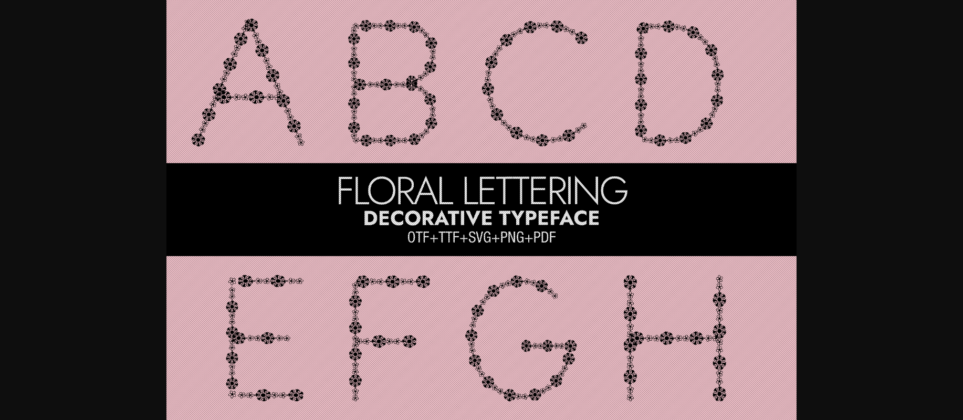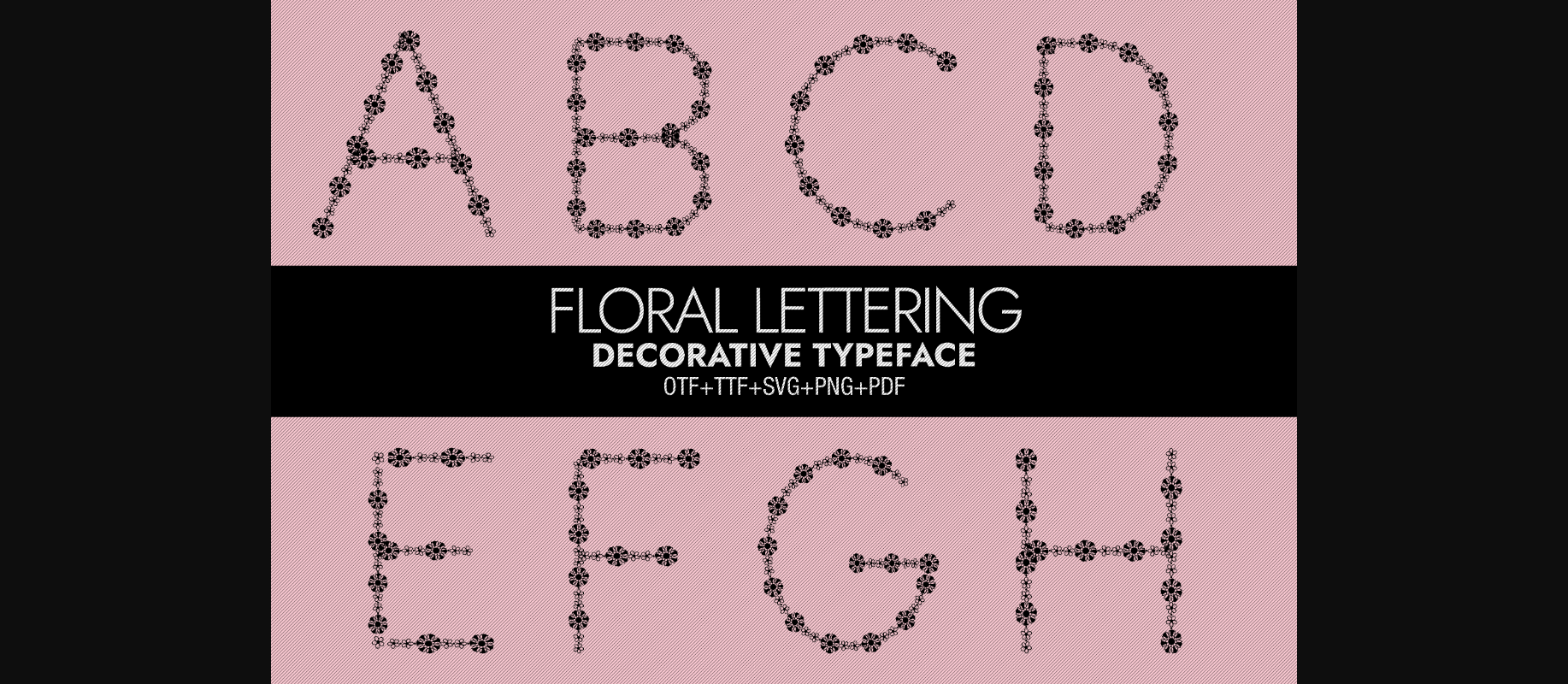
About Floral Lettering Font
Floral Lettering is a beautiful decorative typeface perfect for any floral designs you wish to create. Add it to your wedding invitations, love letters, social media posts, packaging designs, and many more, and it will make them outstanding!